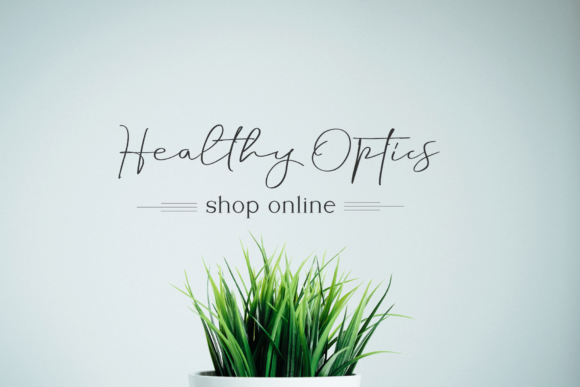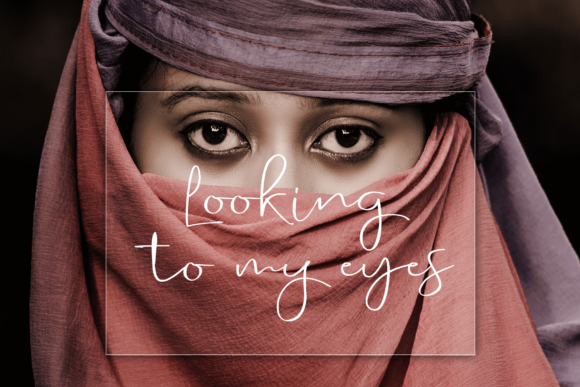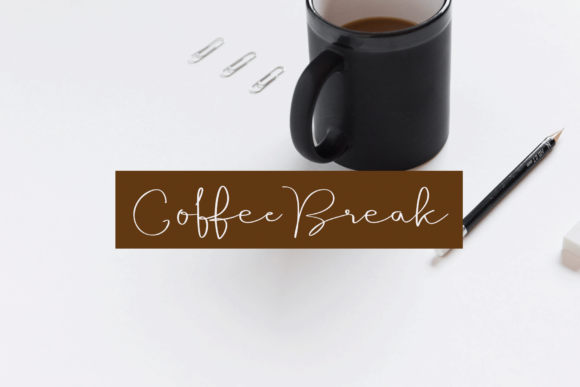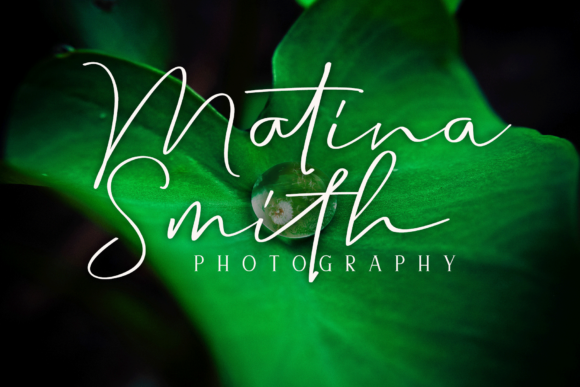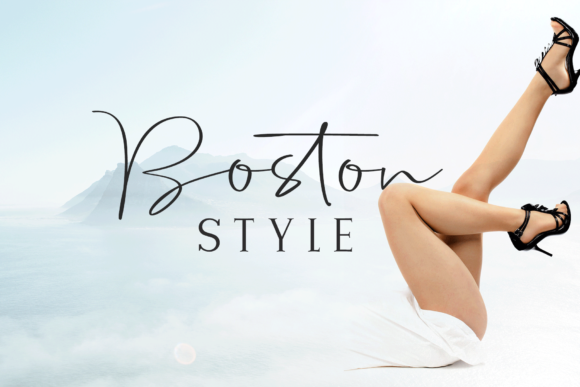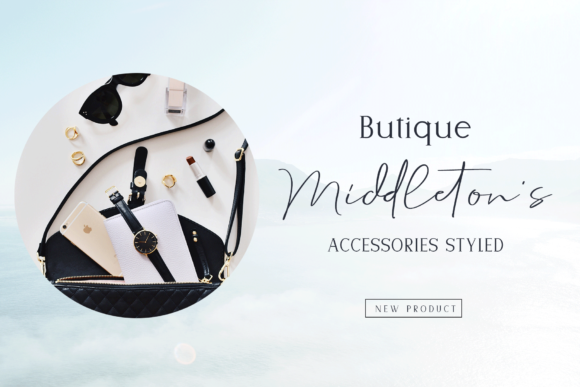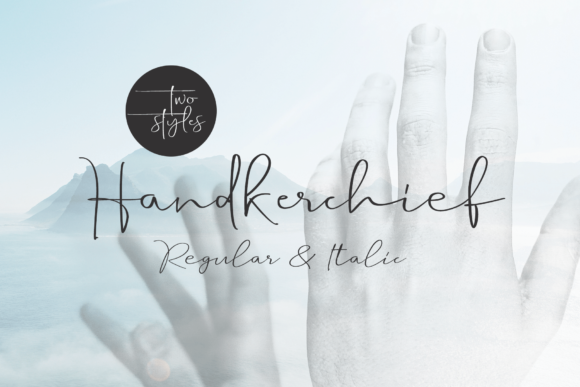
Introducing Handkerchief Font: The Ultimate Choice for Creative Projects
Are you a designer, crafter, or DIY enthusiast looking for a font that can add a touch of personality to your creative projects? Look no further than Handkerchief Font! This cute and casual handwritten font is designed to bring a friendly feel to your designs, making it perfect for a wide range of applications, from Instagram posts to calligraphy scripts.
What Makes Handkerchief Font So Special?
Handkerchief Font is more than just a beautiful handwritten font – it’s a versatile tool that can help you take your designs to the next level. Here are just a few of the features that make it stand out:
- Gorgeous Swashes and Ligatures: Handkerchief Font features stunning swashes and ligatures that add a touch of elegance to any design. With a wide range of swashes and ligatures to choose from, you can customize your text to fit your unique style.
- Alternate Glyphs and Ligatures: In addition to its gorgeous swashes and ligatures, Handkerchief Font also features a wealth of alternate glyphs and ligatures. This means you can mix and match different characters to create a truly unique look.
Whether you’re a professional designer or a crafter working on a DIY project, Handkerchief Font is the perfect choice. Here are just a few ways you can use this versatile font:
- Instagram Posts: Add a touch of personality to your Instagram posts with Handkerchief Font. Its friendly feel and gorgeous swashes make it perfect for social media graphics.
- Calligraphy Scripts: Take your calligraphy skills to the next level with Handkerchief Font. Its elegant swashes and ligatures make it perfect for creating beautiful calligraphy scripts.
- DIY Projects: From handmade cards to customized home decor, Handkerchief Font is the perfect choice for any DIY project. Its versatility and ease of use make it a great choice for crafters of all levels.
Tips for Using Handkerchief Font
Here are a few tips for getting the most out of Handkerchief Font:
- Experiment with Different Swashes and Ligatures: Don’t be afraid to try out different swashes and ligatures to find the perfect look for your design.
- Mix and Match with Other Fonts: Handkerchief Font pairs well with a wide range of other fonts. Try combining it with a bold font for a striking contrast.
- Use it for Headings and Titles: Handkerchief Font is perfect for headings and titles, where its elegant swashes and ligatures can really shine.
In conclusion, Handkerchief Font is a versatile and beautiful handwritten font that’s perfect for designers, crafters, and DIY enthusiasts. Its gorgeous swashes and ligatures, PUA encoding, and wealth of special features make it a great choice for a wide range of creative projects. Whether you’re looking for a font for Instagram, calligraphy scripts, or DIY projects, Handkerchief Font is the ultimate choice.